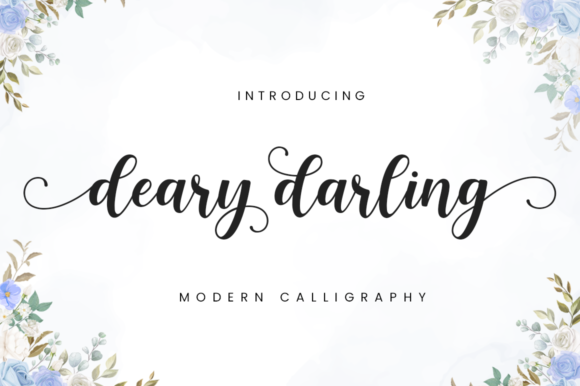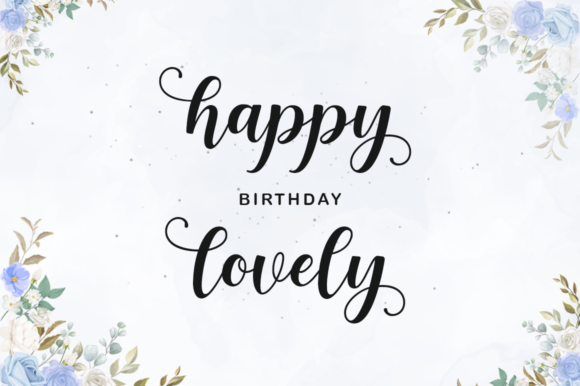
About Deary Darling Font
Deary Darling feels equally charming and elegant. It looks stunning on wedding invitations, thank you cards, quotes, greeting cards, logos, business cards and every other design which needs a handwritten touch.